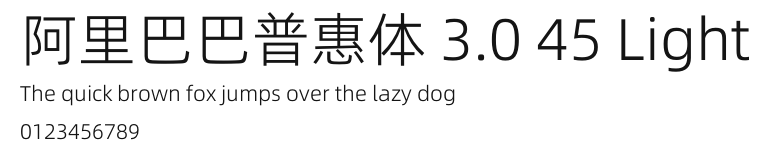
阿里巴巴普惠体 3.0 45 Light Preview
• Font Name: 阿里巴巴普惠体 3.0 45 Light
• Font ID: Hanyi Alibaba-PuHuiTi-3-45-Light v3.01
• Full Font Name: 阿里巴巴普惠体 3 45 Light
• Version: Version 3.01
• PostScript Name: AlibabaPuHuiTi_3_45_Light
• Character Count: 29197
• Designer: Alibaba Design
• Manufacturer: Alibaba Design;汉仪字库
• Description: GB18030-2022 实现级别2
About 阿里巴巴普惠体 3.0 45 Light.otf
阿里巴巴普惠体 3.0 45 Light.otf is a modern, elegant sans-serif font designed for ultimate readability and visual harmony. Perfect for branding, headlines, web design, and print materials.